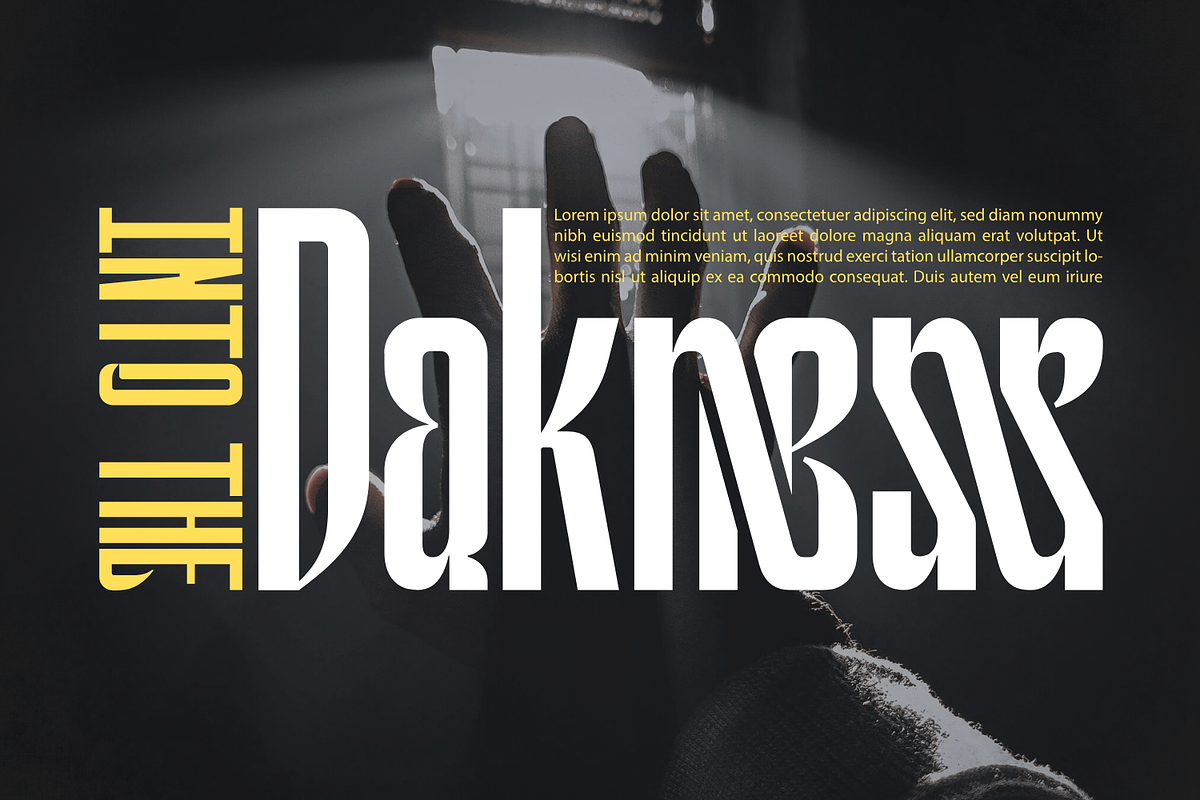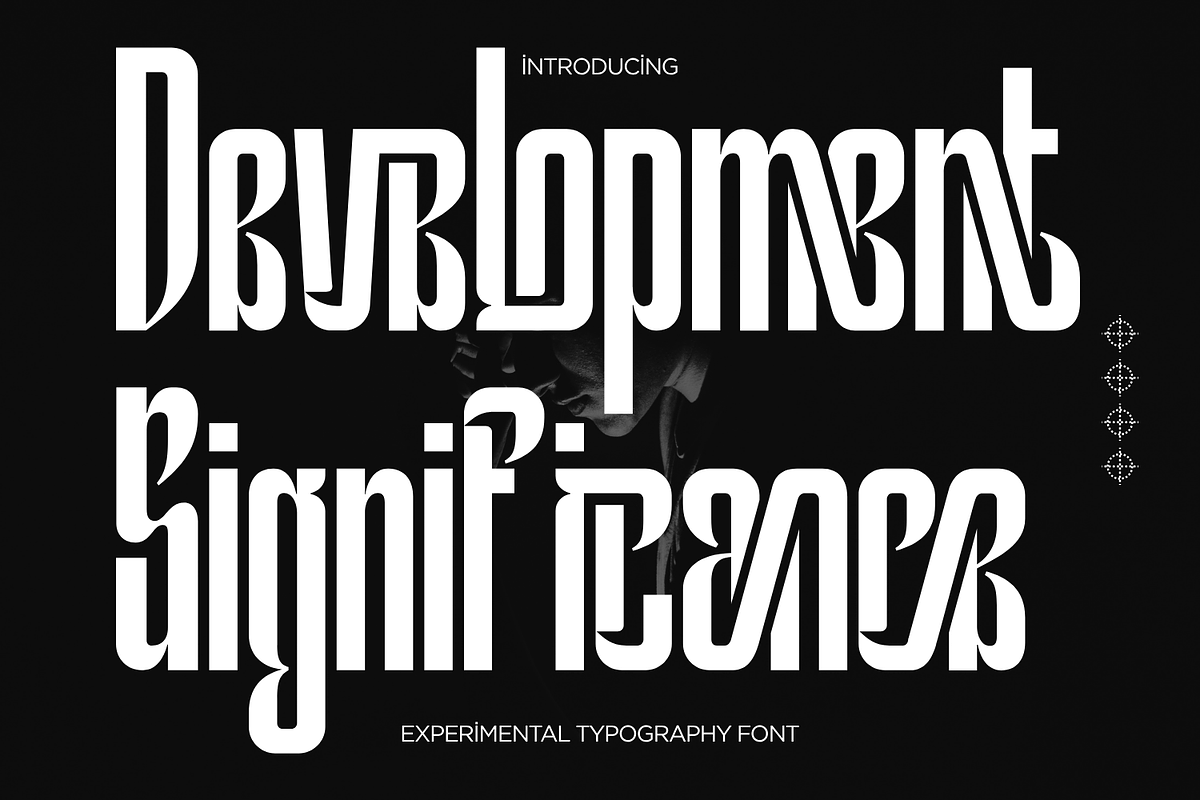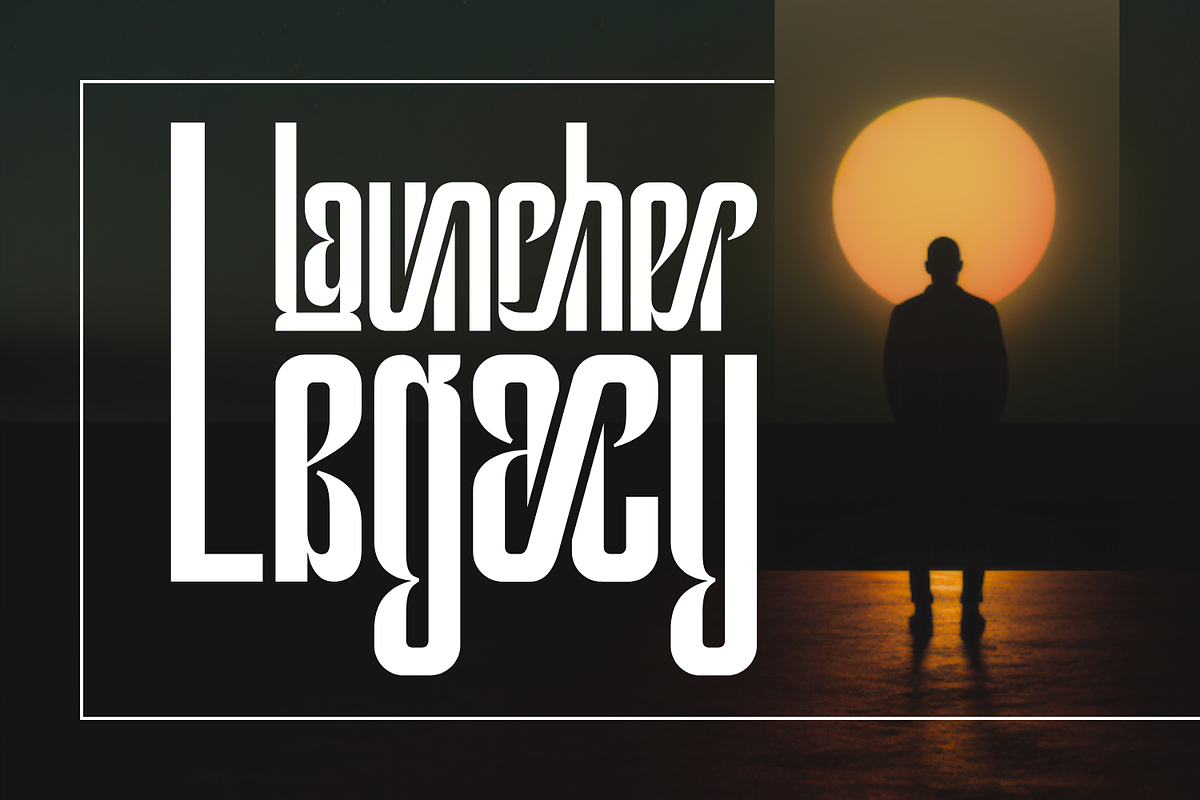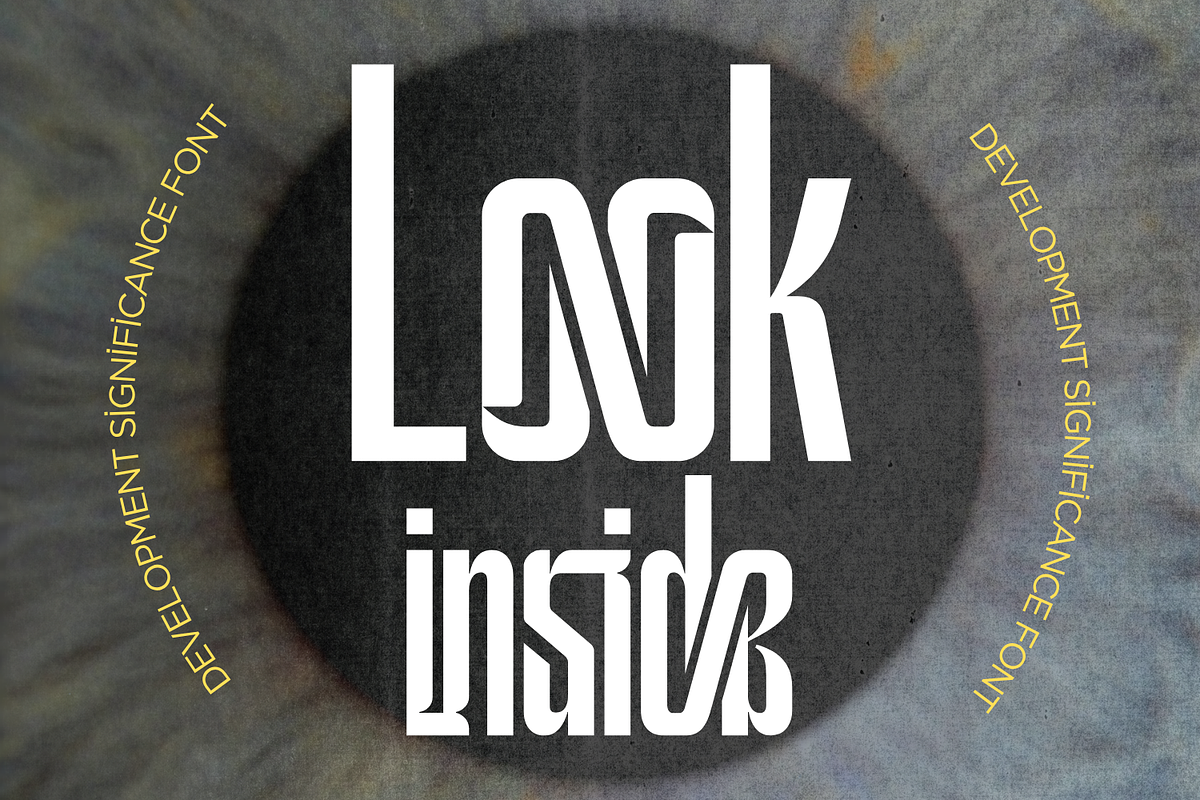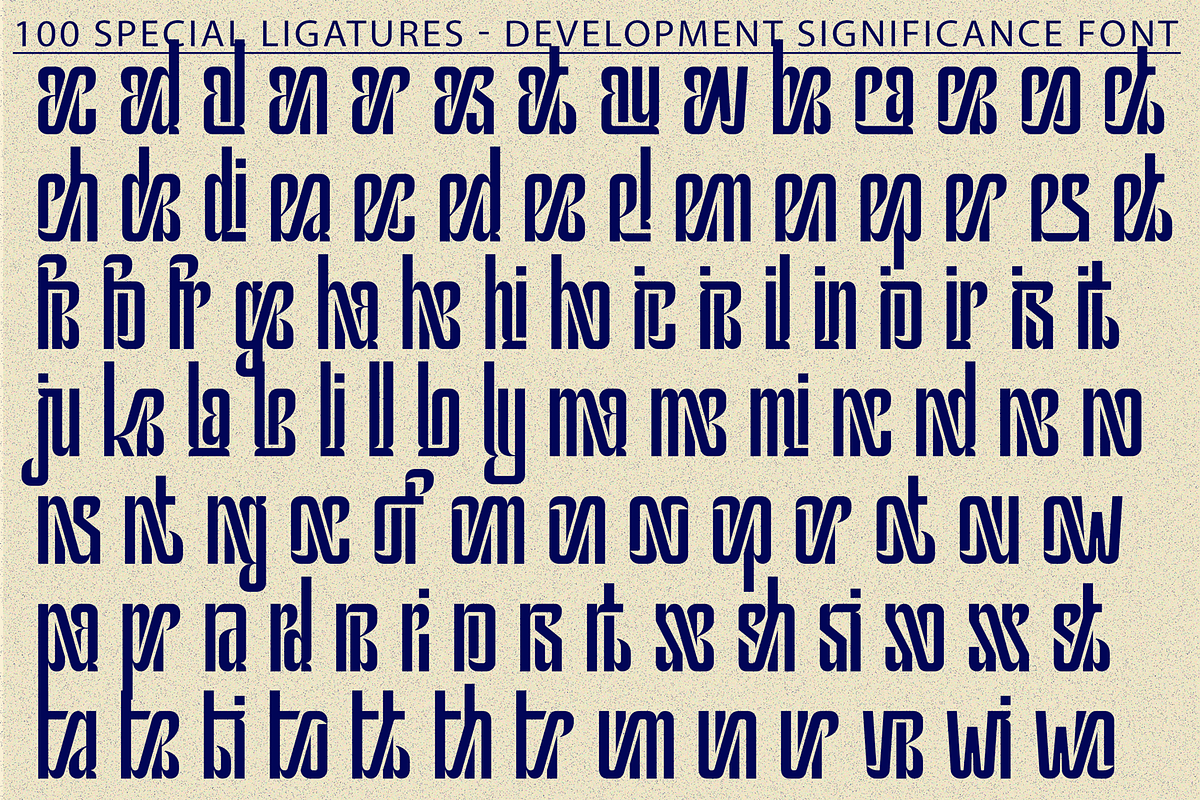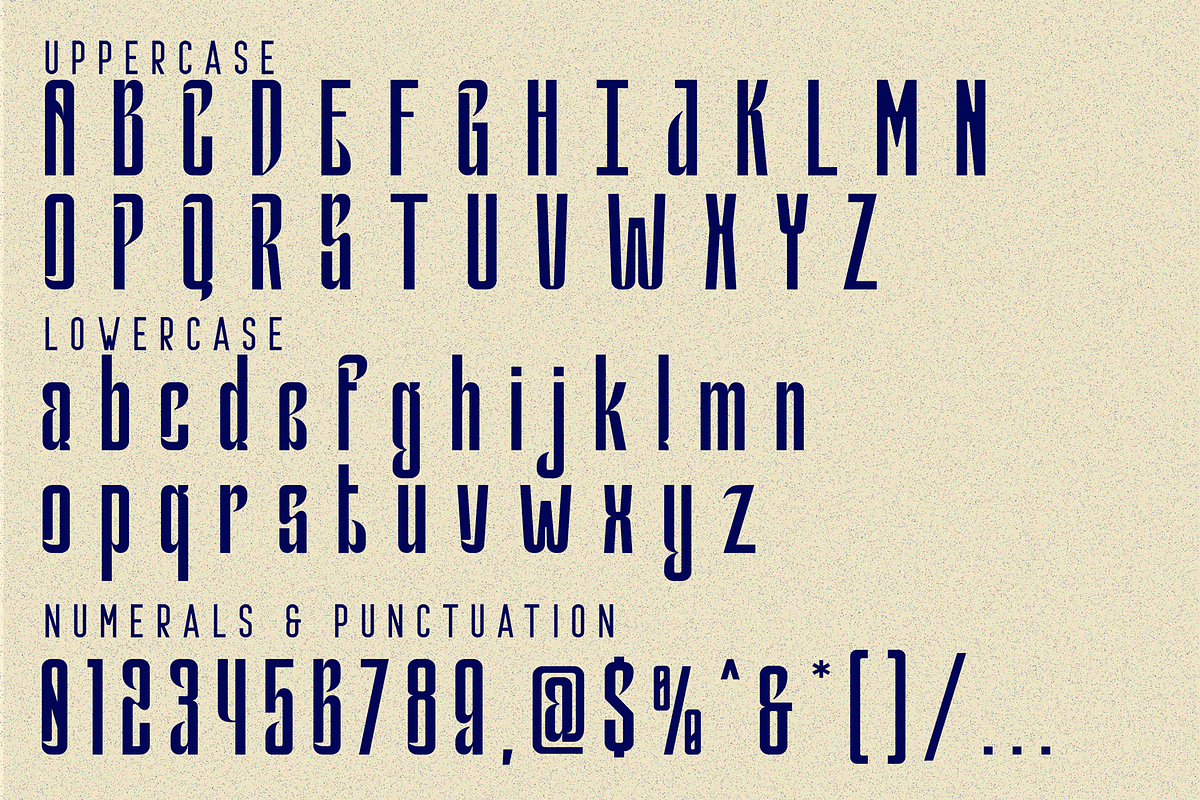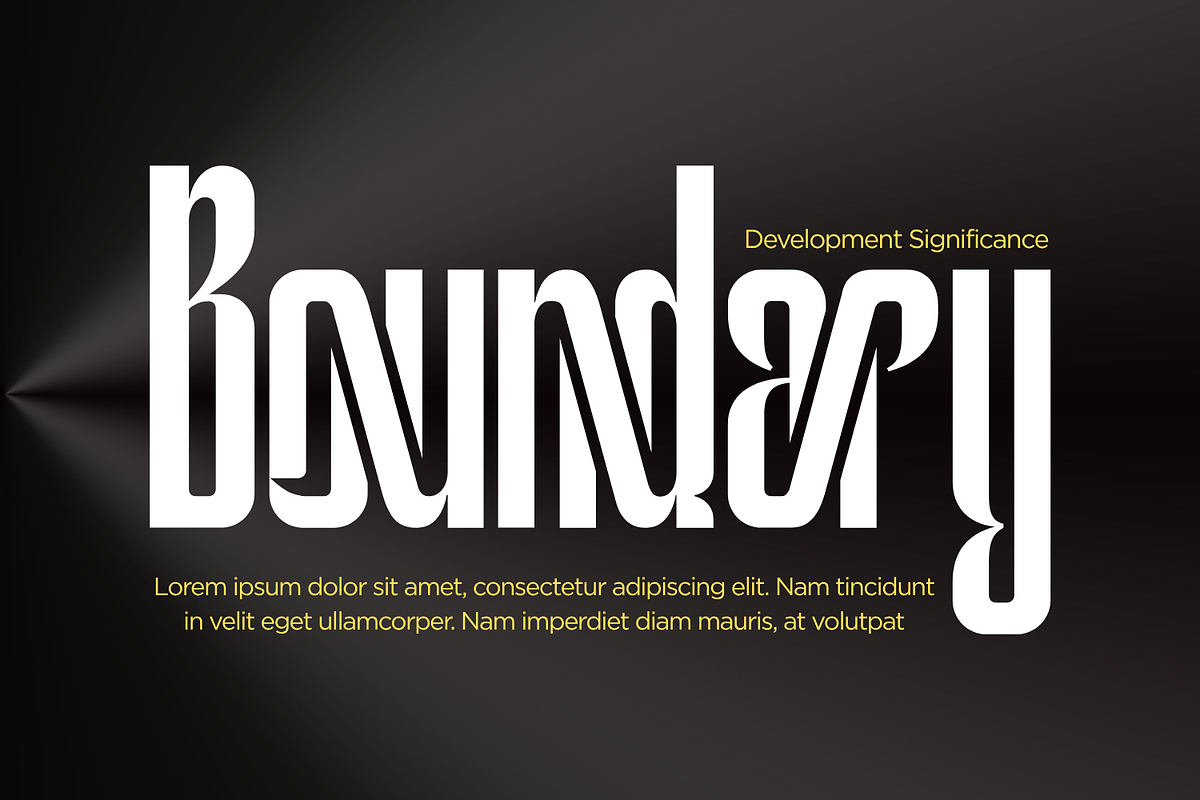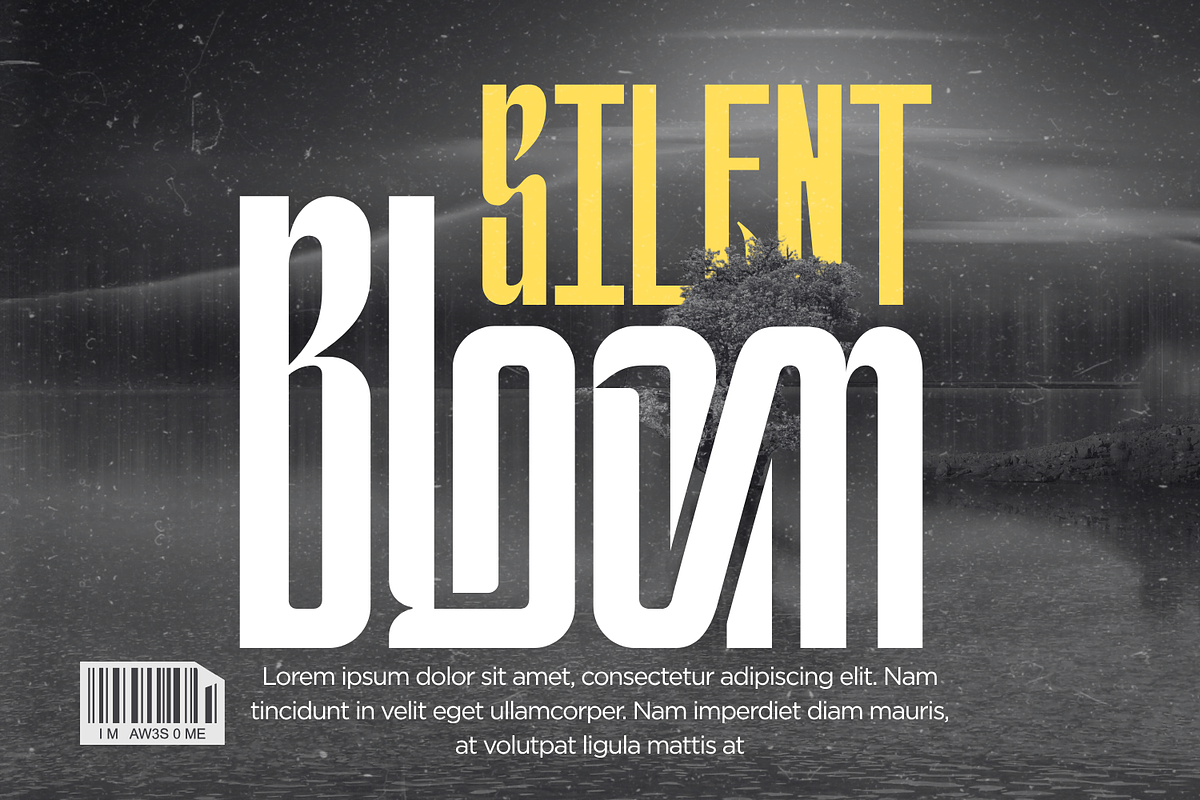
Development Significance - Condensed
Development Significance - Condensed Font, an avant-garde Experimental Sans-Serif Display Font designed for creatives who dare to explore new visual dimensions. This typeface combines modular geometry, bold vertical forms, and inventive ligature systems to deliver a distinctive, futuristic style. Perfect for experimental branding, music posters, digital art, or editorial design that seeks to challenge convention.
- Uppercase & Lowercase Letters
- Approximately 100 Special Ligatures for unique compositions
- Numerals & Punctuation for complete versatility
- Accented Characters supporting multiple languages
About 100 ligatures combined with Stylistic Alternates Font:
ac ad al an ar as at au av be ca ce ch co ct de di ea ec ed ee el em en ep er es et fe fo fr ge ha he hi ho ie ic il in io ir is it ju ke la le li ll lo ly ma me mi nc nd ne ng no nt ns oc of om on oo op or ot ou ow pa pr ra rd re ri ro rs rt se sh si so ss st ta te th ti to tr tt um un ur ve wi wo